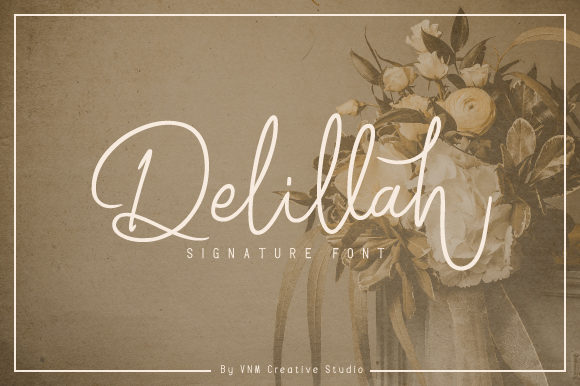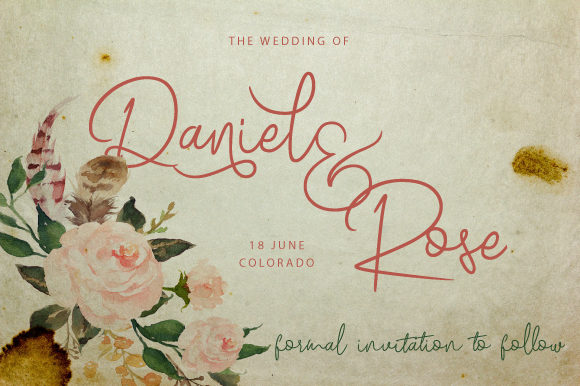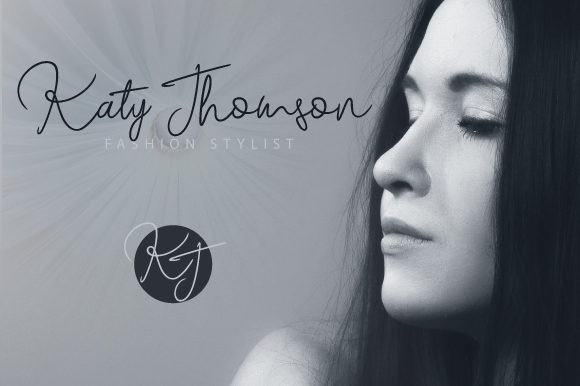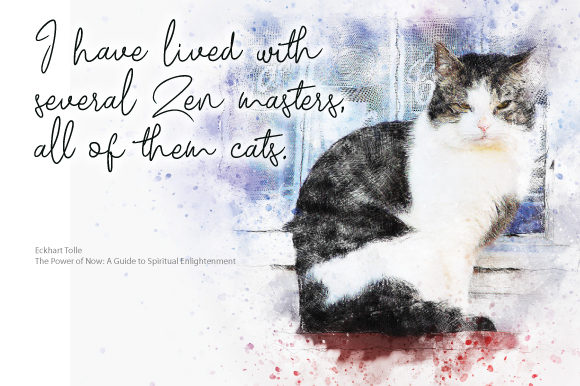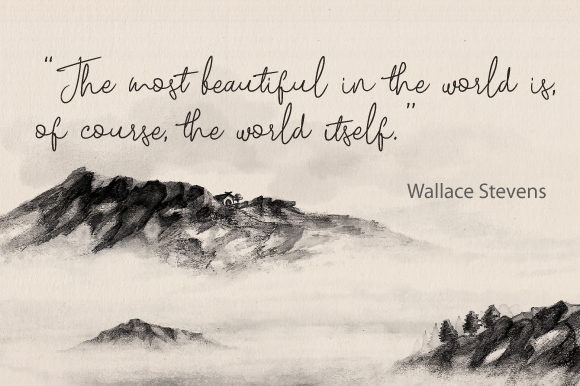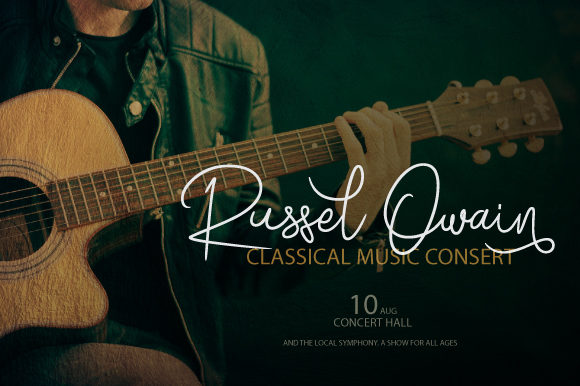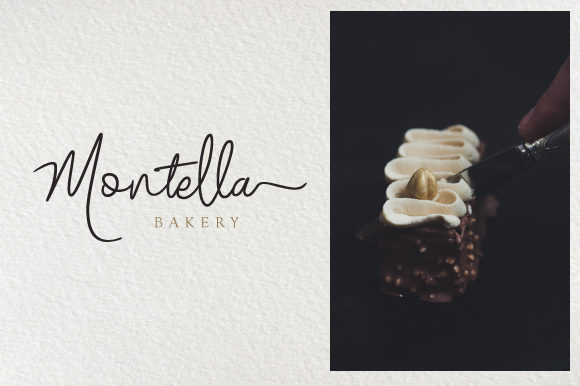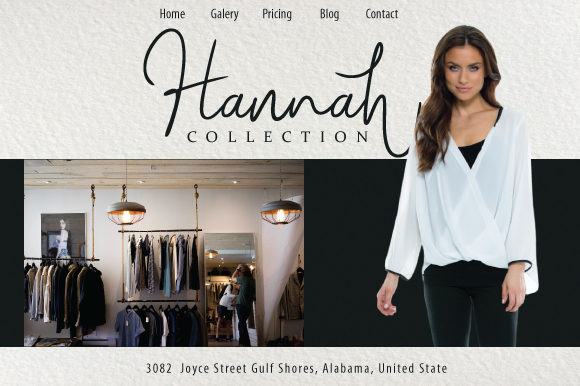
Delillah Font
About Delillah Font
Delillah is a light and breezy handwritten font with lots of authentic charm. Fall in love with its striking style, and add an authentic touch to any creative project.